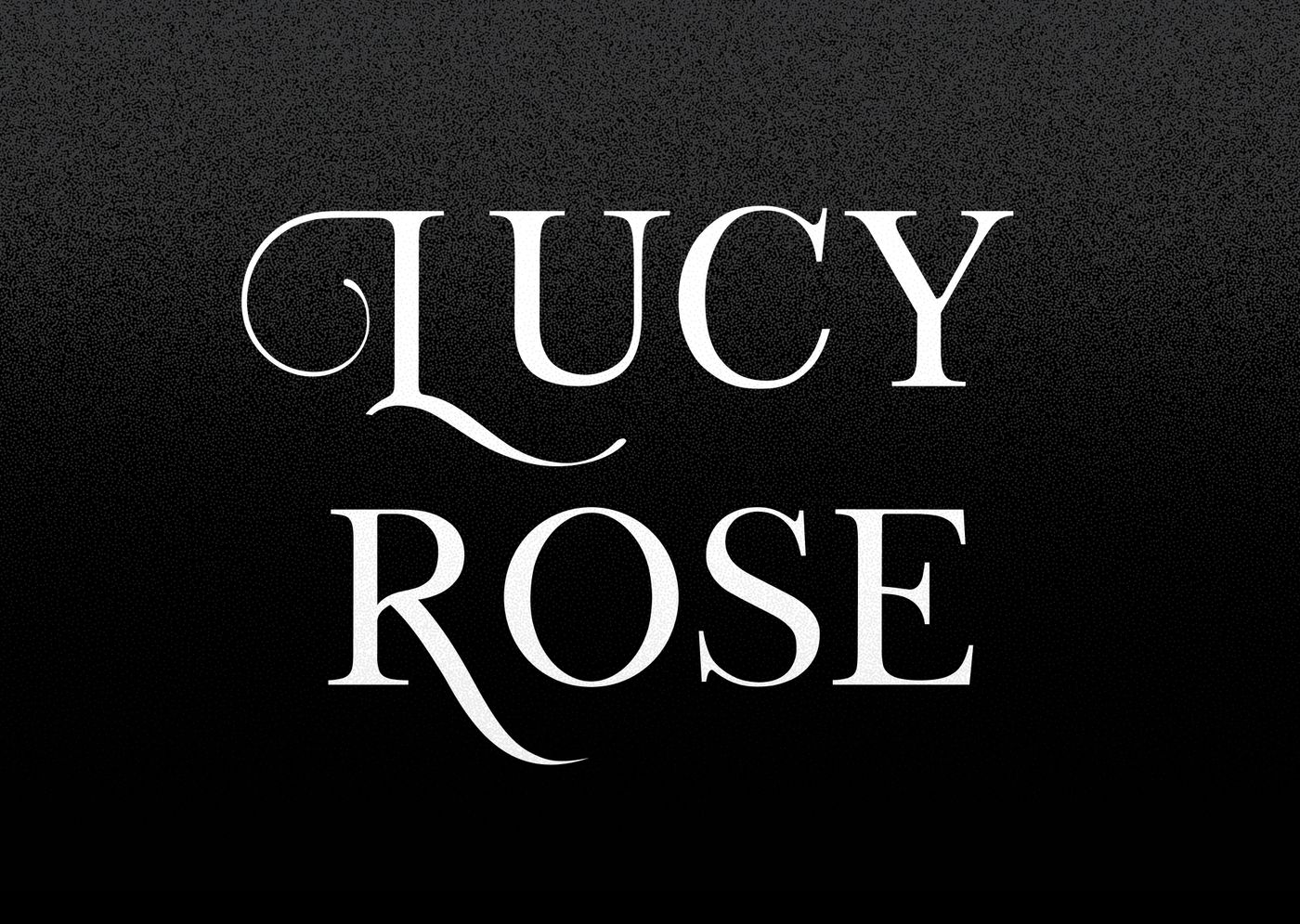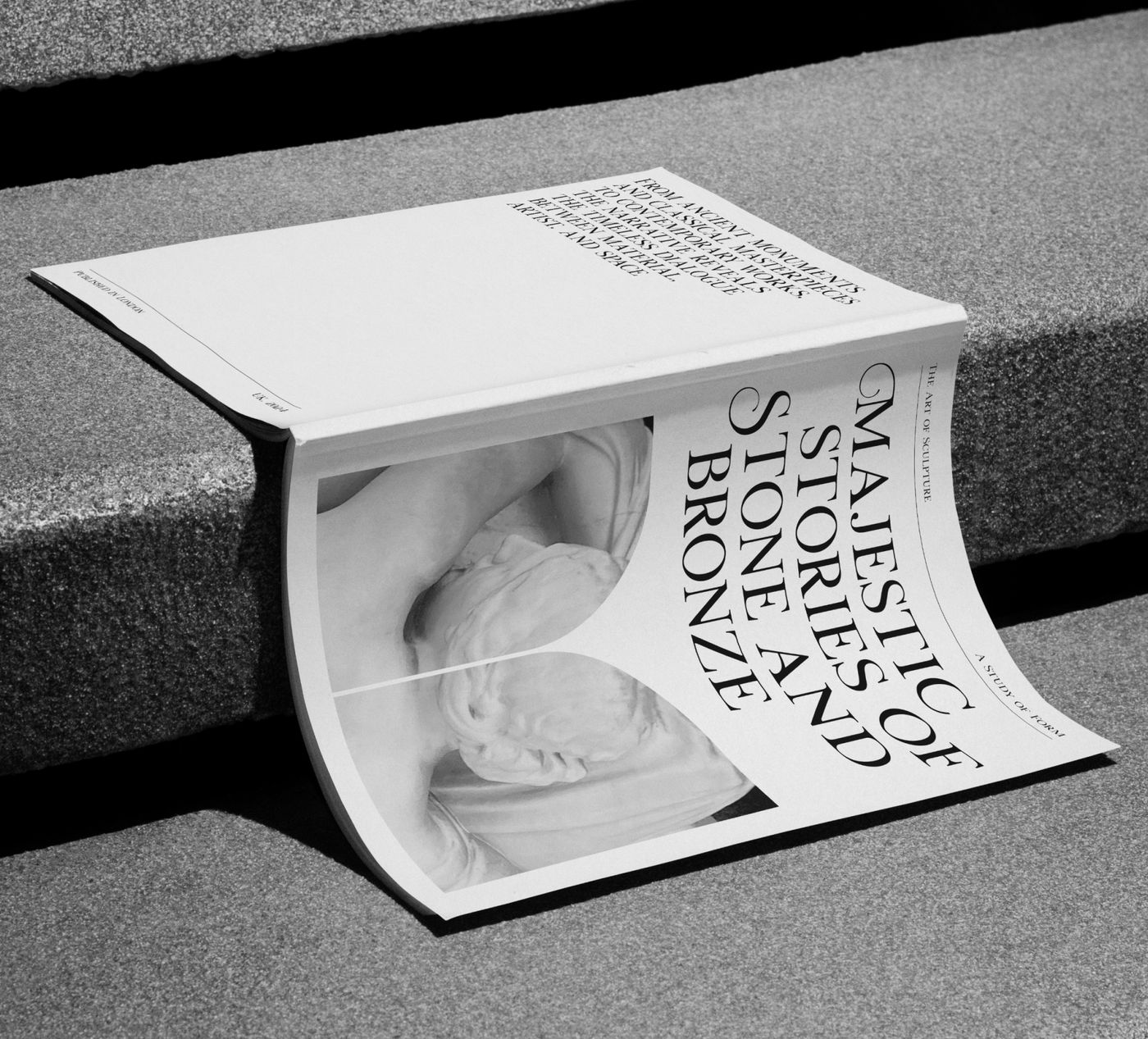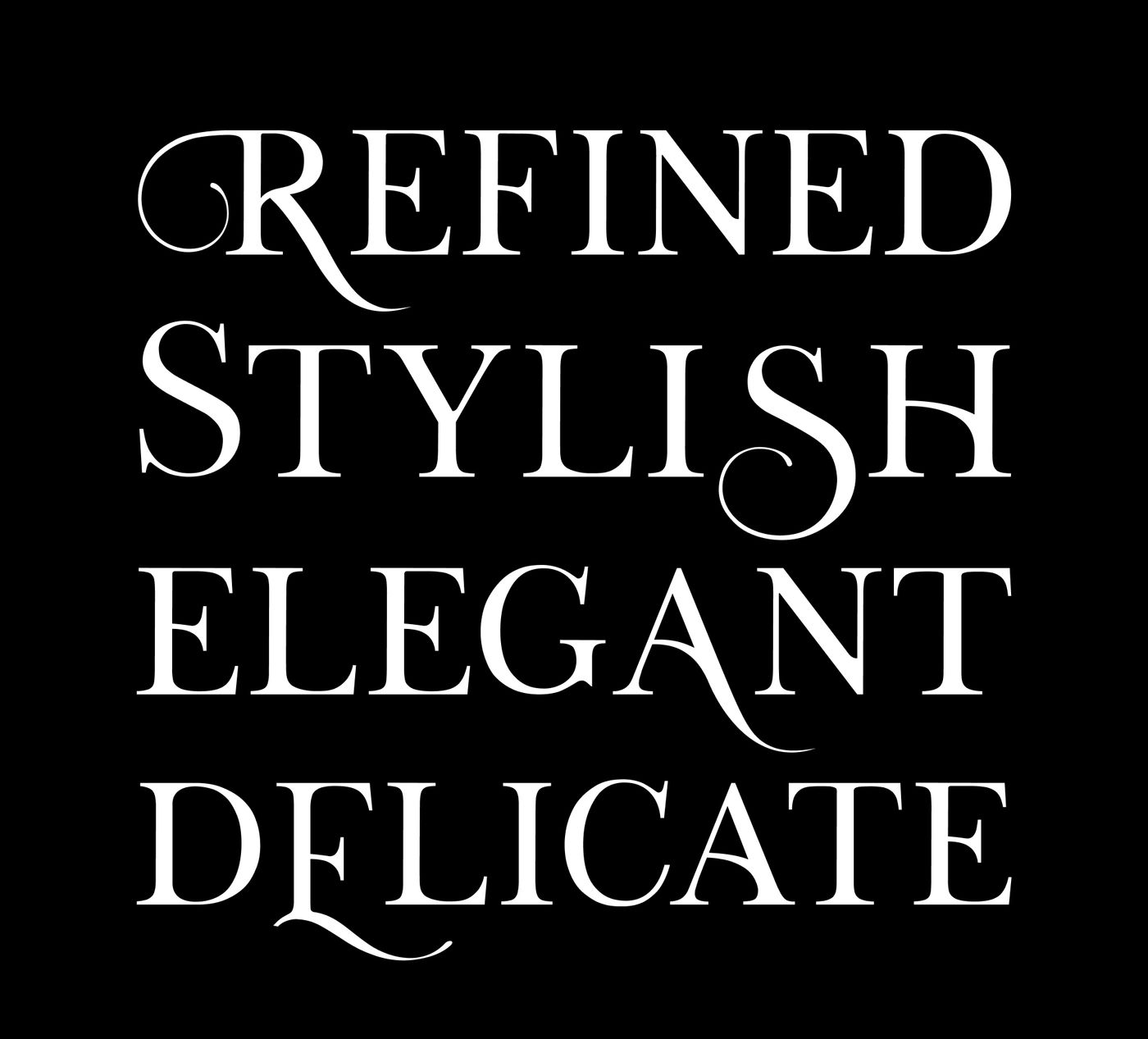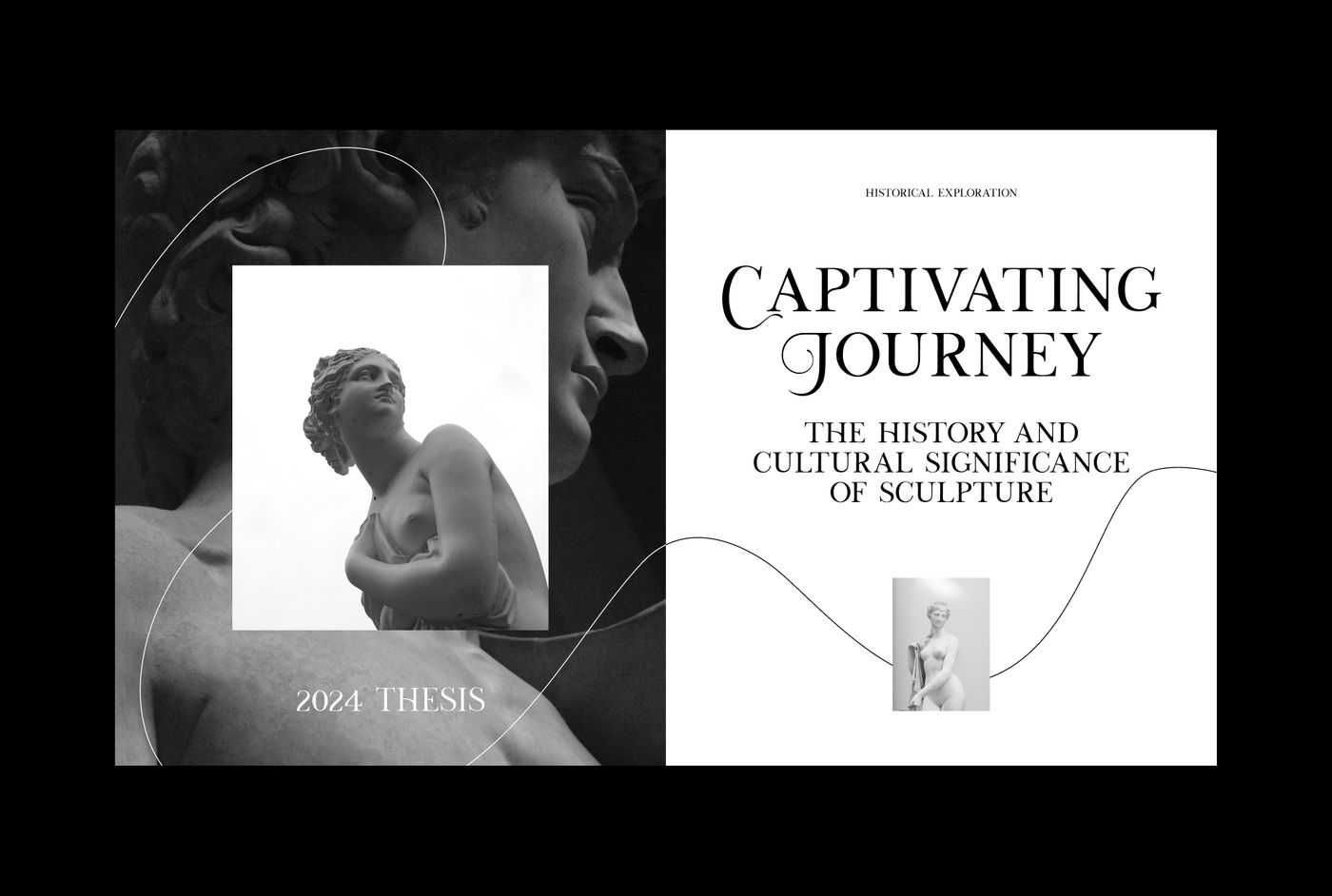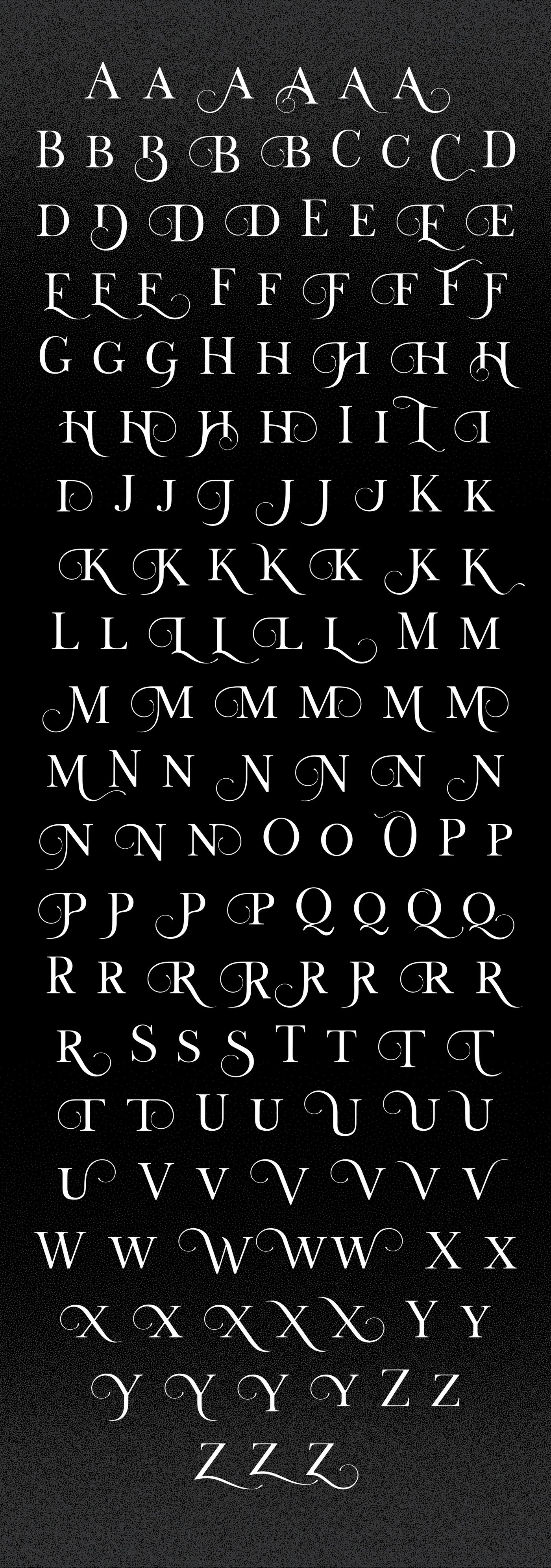
Lucy Rose, from Ellen Luff Type Foundry, is an elegantly expressive display serif designed for customization and exploration. A passion project made to give the effect of custom typography. It comes alive when over 100 stylized swash alternatives are employed. Although all caps, the potential for beautiful interlocking word shapes and unique designs is endless. Just think! Editorial, advertising, branding, packaging, book covers, invitations, and more! The look of something unique is at your fingertips.